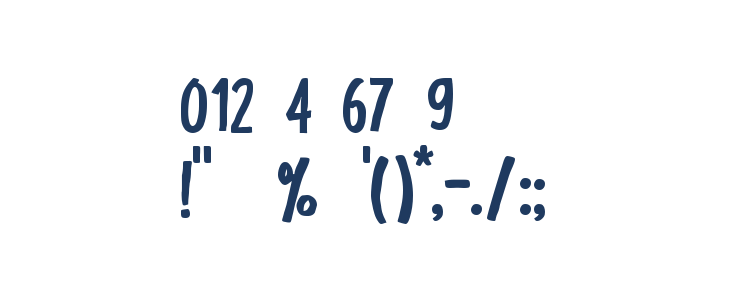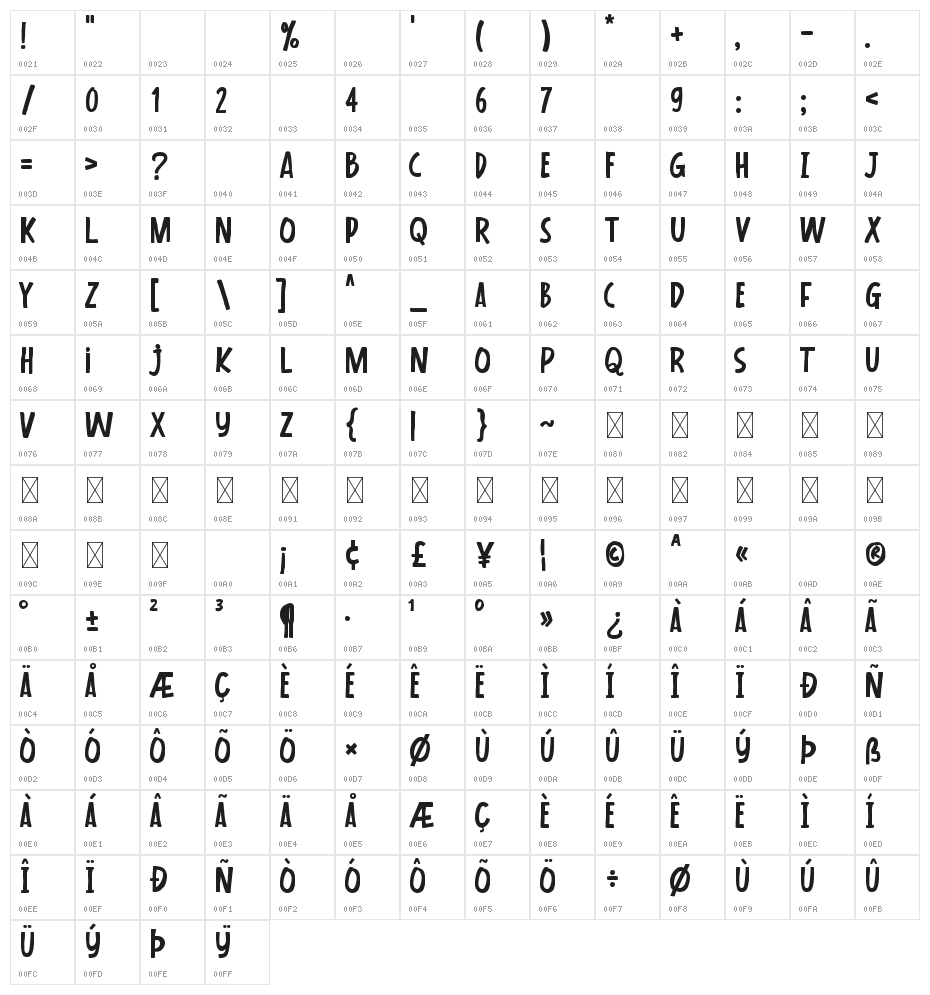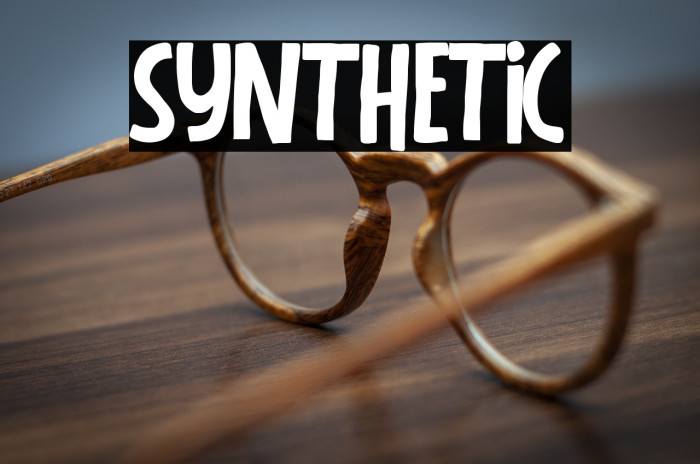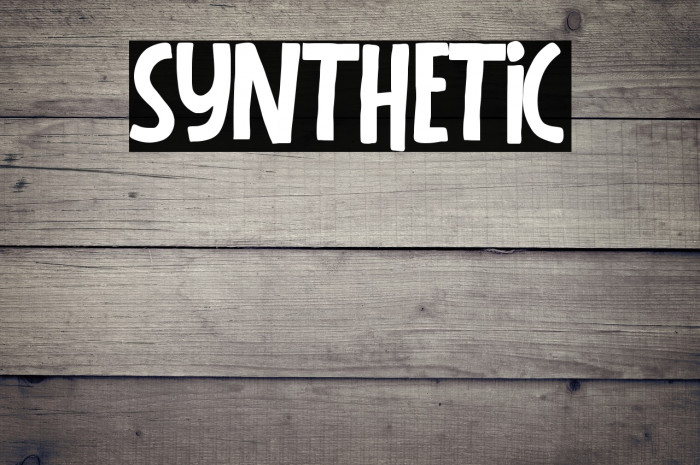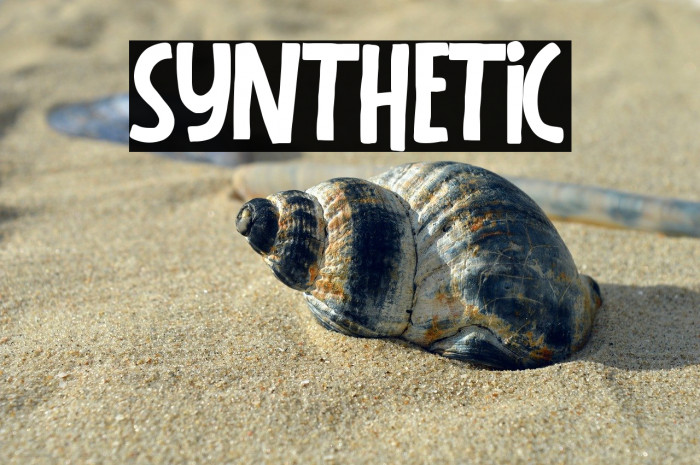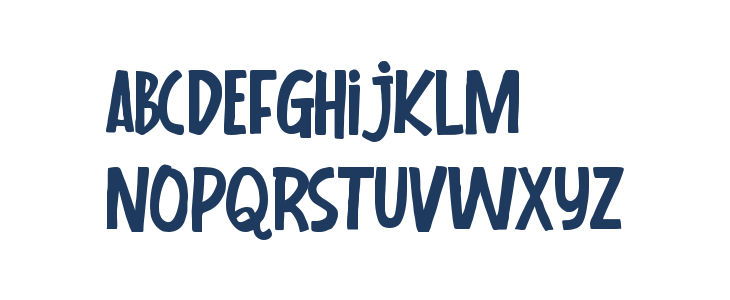
Synthetic Font
Synthetic Description
This font features a bold and playful design, characterized by its thick strokes and slightly irregular shapes that give it a hand-drawn appearance. The letters are well-spaced, allowing for easy readability while maintaining a casual and friendly vibe. The uppercase and lowercase letters share a consistent style, with rounded edges and a slight tilt that adds to the dynamic feel. The numerals and special characters are designed to match the overall aesthetic, making this font versatile for various creative projects.
Overall StylePlayful
Use CaseHeadlines, Logos, Informal Text
Proposed ProjectsIdeal for children's books, comic strips, playful branding, and informal invitations.